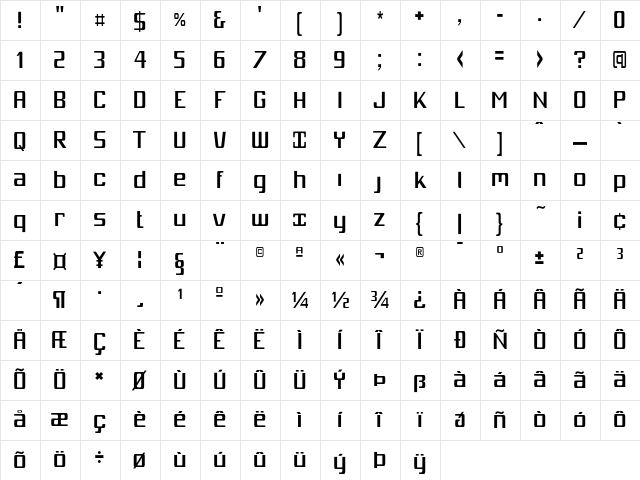
Mobitale Cnd Regular Free Font
Mobitale Cnd Regular
Designer: Cleber Giovani Soares
Design Context for Mobitale Cnd
Mobitale Cnd is a composed and adaptable typeface that performs quietly and consistently across a wide range of design contexts.